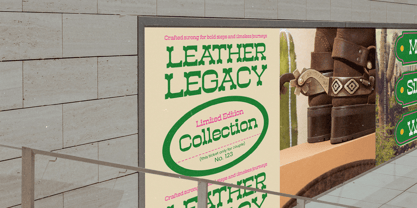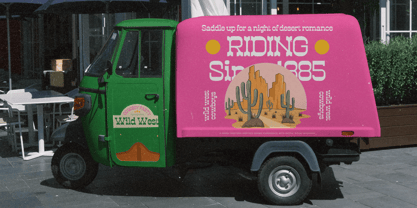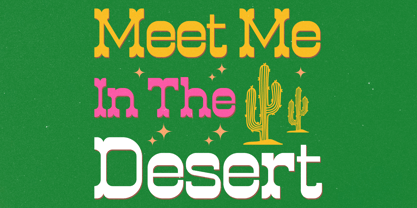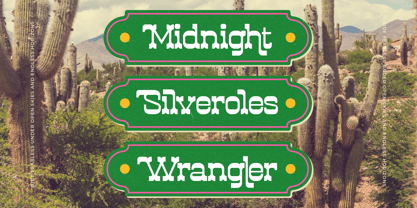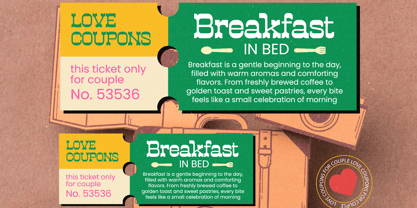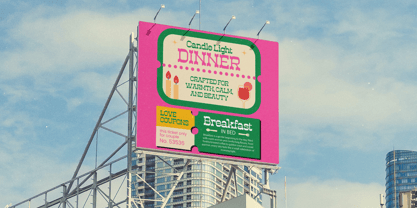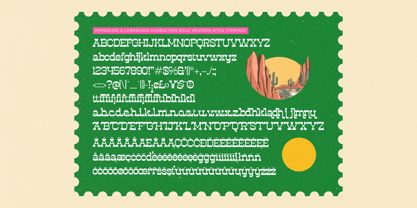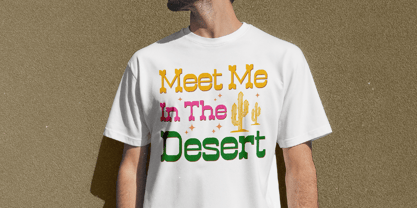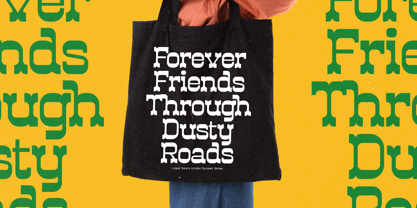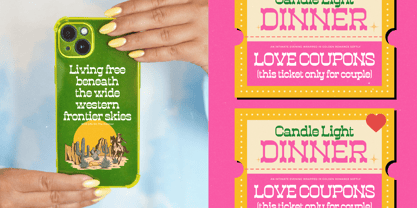
Westkind
by Timelesstype Studio
The Westkind Font Family was designed by Heru Utama Putra and published by Timelesstype Studio. Westkind contains 2 styles and family package options. More about this family
Westkind - Modern Western Slab Serif Westkind is a bold slab serif font inspired by classic western typography and vintage frontier aesthetics. Designed with strong geometric forms, sturdy serifs, and confident letter structures, this typeface brings a rugged yet refined personality to your designs. Perfect for logos, packaging, posters, branding projects, apparel graphics, signage, and editorial layouts, Westkind delivers powerful visual impact with a nostalgic western charm. Featuring 14 ligatures, 61 alternates, and full multilingual support, it offers versatile styling options while maintaining its distinctive character. Whether you’re creating western-themed branding or bold statement headlines, Westkind adds strength, authenticity, and timeless slab serif appeal to both print and digital media.